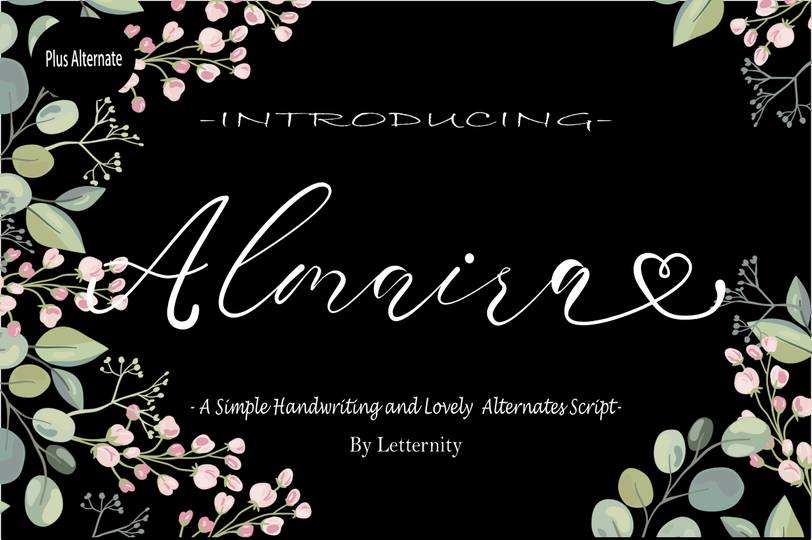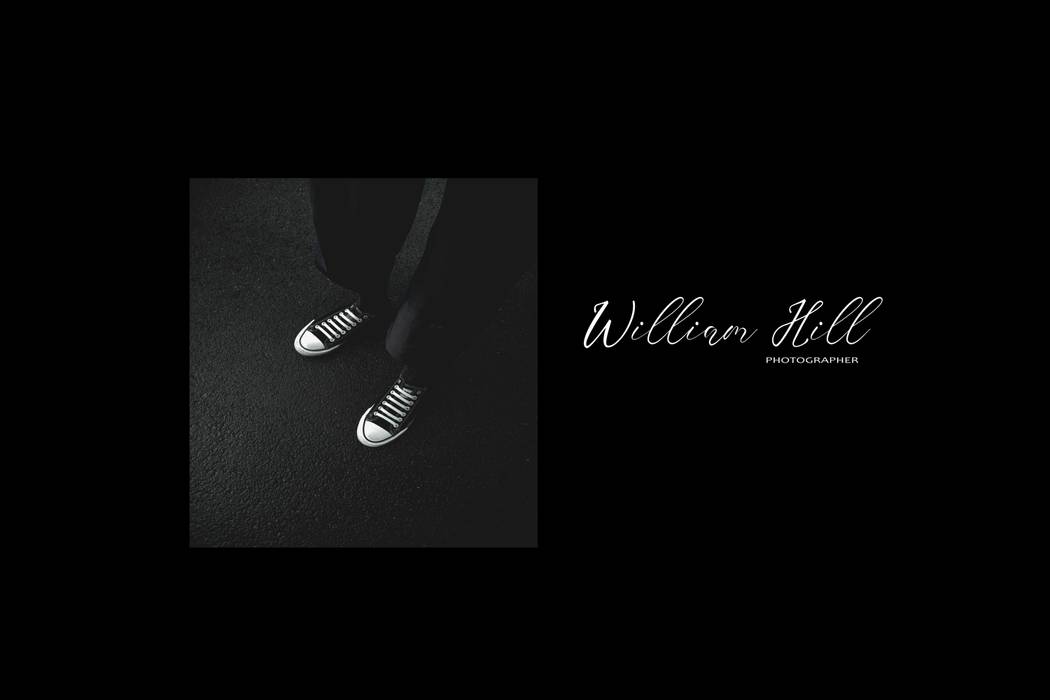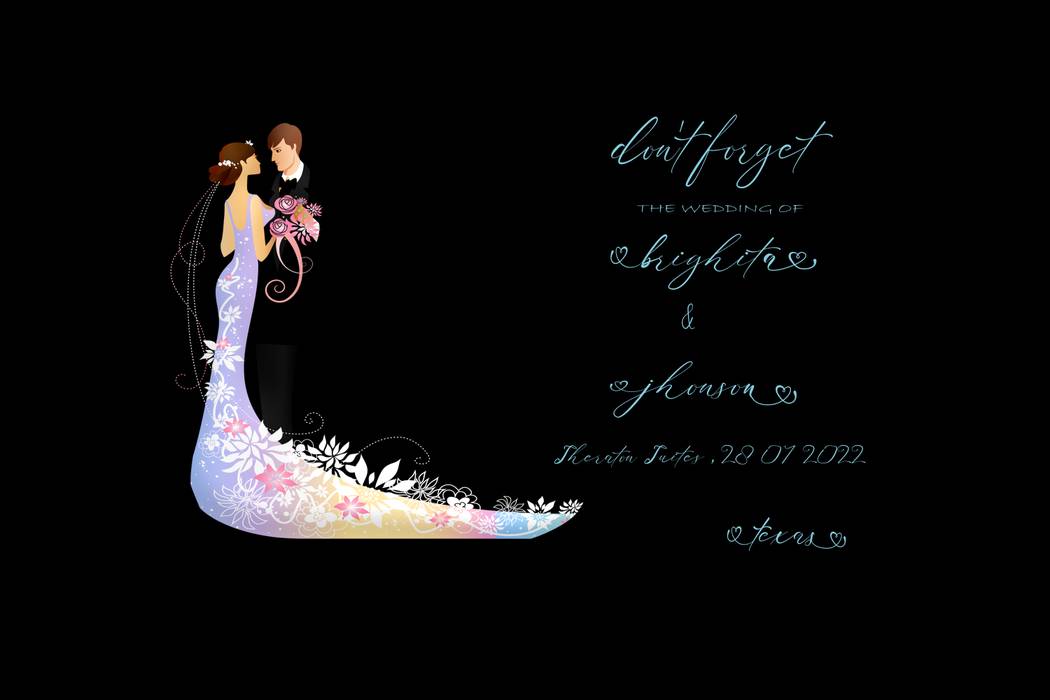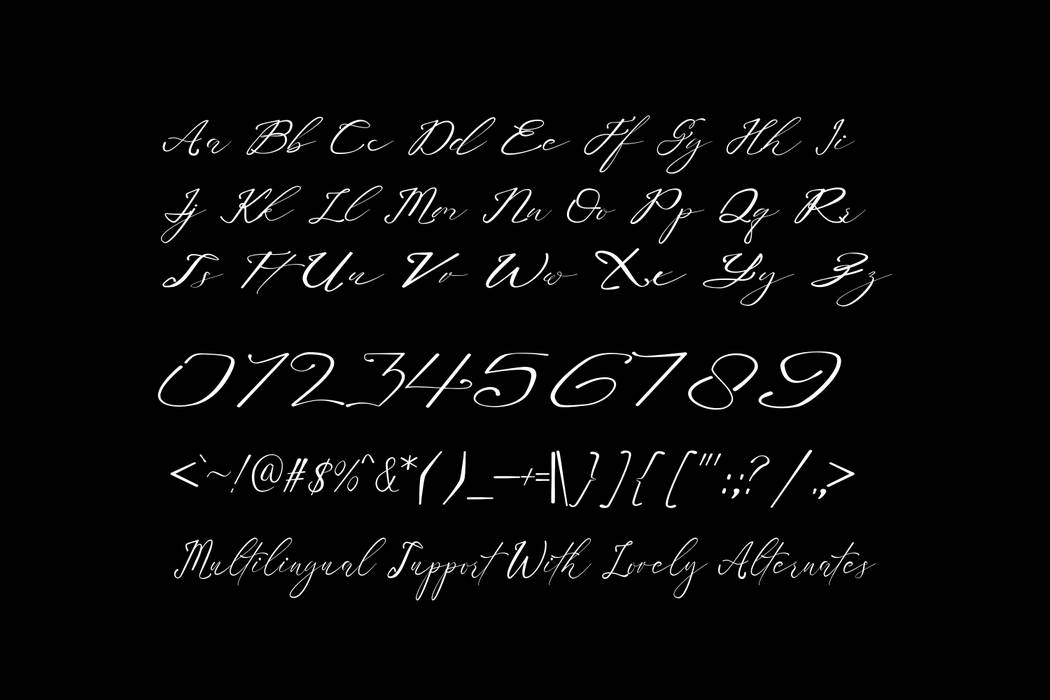
Almaira is an elegant script font with slender, flowing strokes that evoke a sense of delicate sophistication. Its light weight and graceful curves make it ideal for invitations, branding, and stylish headlines where a refined, handwritten touch is desired. This font works beautifully in contexts that call for a personal, romantic, or classy feel.
Almaira Font
About Almaira Font